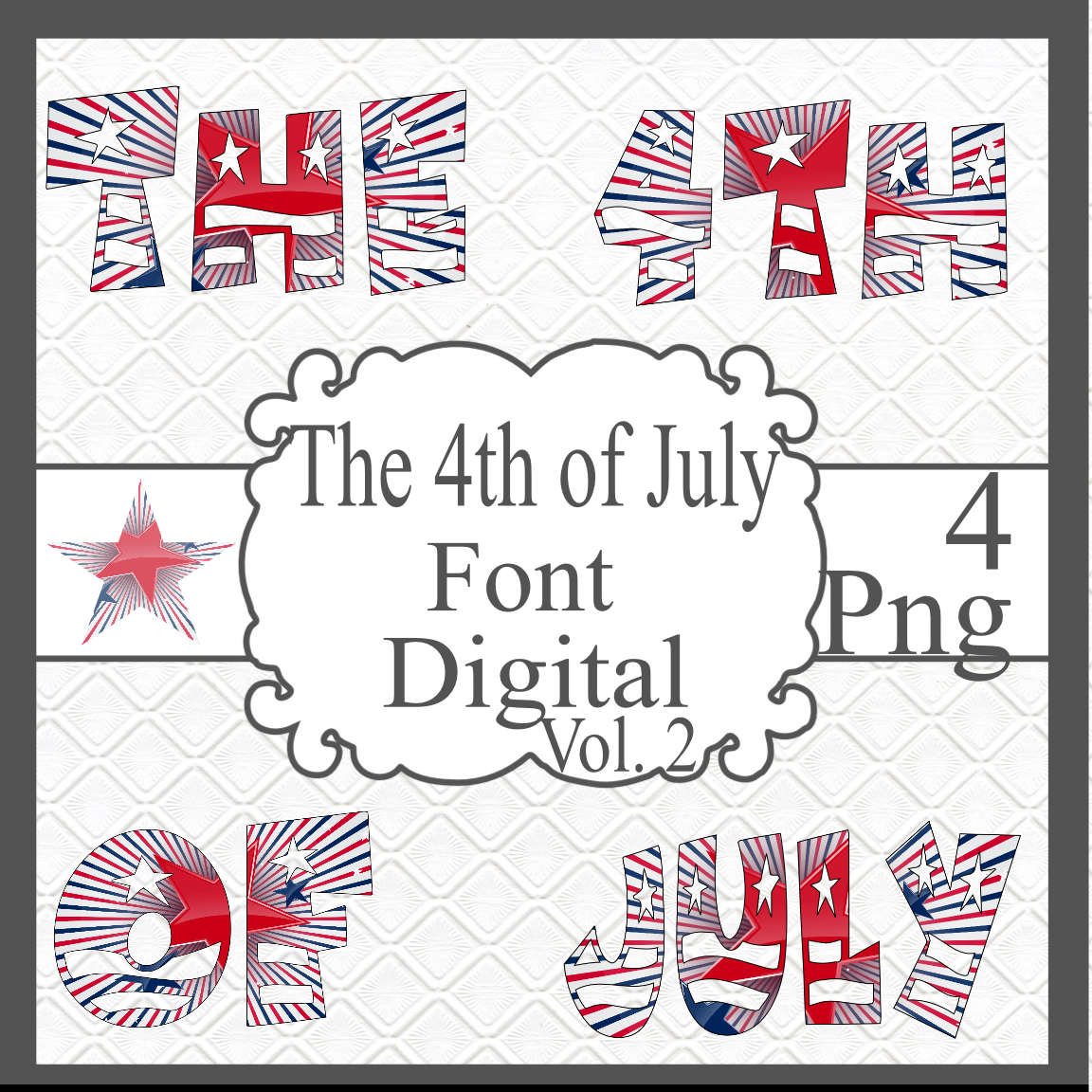
The 4th of July Font Digital Vol. 2
The 4th of July Font Digital Vol. 2-Art Clip-Gift Tag-T shirt-Jewelry-Notebook-Holiday-Scrapbook-Banner-Website-Gift Card. Clipart is great for creating invitations, birth announcements, baby showers, business cards, web designs, greeting cards, party printables, tags and so much more!